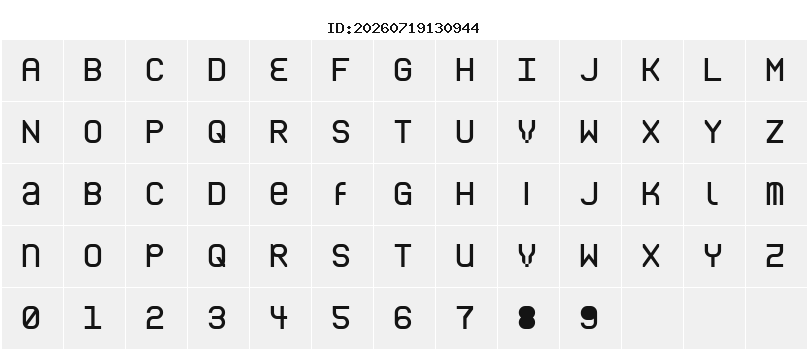
CloseCall Preview
About CloseCall.ttf
CloseCall.ttf is a modern, elegant sans-serif font designed for ultimate readability and visual harmony. Perfect for branding, headlines, web design, and print materials.